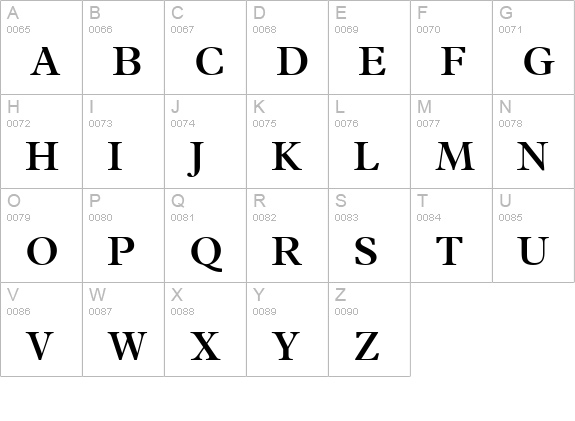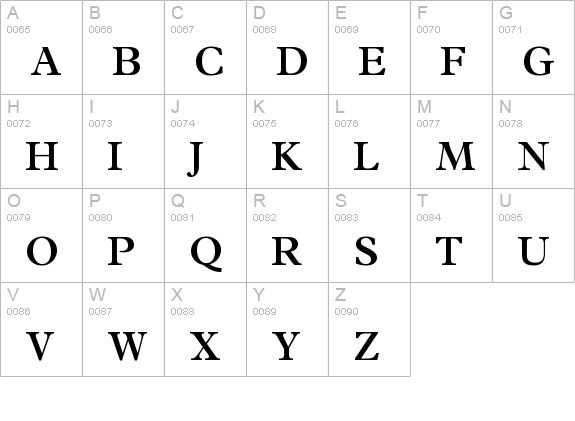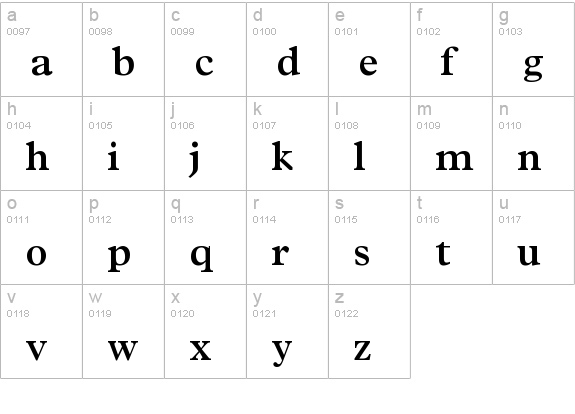
Terminus SSi Semi Bold is a strong, high-contrast variant in the Terminus typeface family \xE2\x80\x94 well suited to headlines, attention-grabbing titles, and strong calls-to-action.
Introducing Terminus SSi Semi Bold, a captivating and versatile font that commands attention with its sleek and modern design. This typeface effortlessly merges strength and elegance, making it the perfect choice for any project that requires a bold and impactful presence. Terminus SSi Semi Bold boasts a distinct and confident character set, featuring sharp lines and well-defined curves. Its precise geometry and balanced proportions create a harmonious visual experience, ensuring legibility and readability across various mediums. With its semi bold weight, Terminus SSi Semi Bold strikes the ideal balance between readability and emphasis, making it an excellent choice for headlines, titles, and subheadings. Whether you are designing a magazine layout, crafting a logo, or creating an eye-catching poster, this font will add a touch of boldness and sophistication to your design. What sets Terminus SSi Semi Bold apart is not only its impeccable design, but also the fact that it is freely available to download at FontsMarket.com. This means that you can effortlessly access and utilize this remarkable font without any restrictions, making it an invaluable asset for both personal and commercial projects. So, why settle for ordinary when you can elevate your designs with Terminus SSi Semi Bold? Download this exceptional font today and embark on a creative journey that will captivate and inspire.